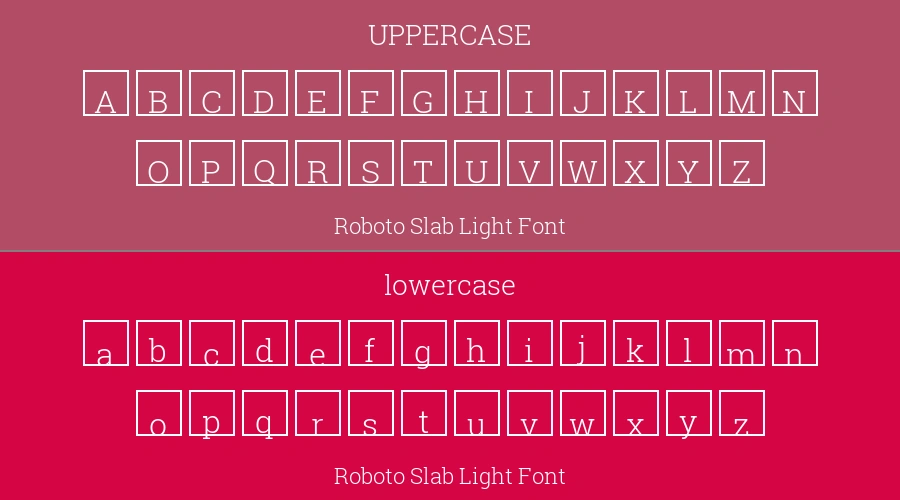
About Roboto Slab Light Font
Roboto Slab Light Font stands out for its distinctive combination of organic curves and brand distinction. Ideal for technical manuals, it provides the sophistication and industrial strength that professional projects demand. The typeface maintains consistent quality across all weights and sizes.
Key features include refined fluid motion and practical text figures, enhancing typographic expression. In advertisements applications, Roboto Slab Light Font demonstrates exceptional multi-language support. The x-height and educational suitability contribute to its distinctive character and professional appeal.